Fonts come in all shapes and sizes, and pretty much every font can be classified into different font groups based on certain shared characteristics. Every classification of font serves a different purpose and is built with a different goal or vision in mind, and today we are going to explore the unique world of monospaced fonts and find out what makes them so interesting and useful to use for many.
What is a Monospaced Font?
In short, monospaced fonts are unique in that all of the characters take up the same amount of horizontal space. Usually, fonts feature some variety in individual character width and spacing, but a monospaced font ensures that each character’s width never varies, and as a result, they often look a little more spaced out or separated than the proportional fonts that we are more used to seeing. Essentially you could draw the same rectangle box around each character, and the spacing for each would be the same throughout.
Calling Code by Dharma Type
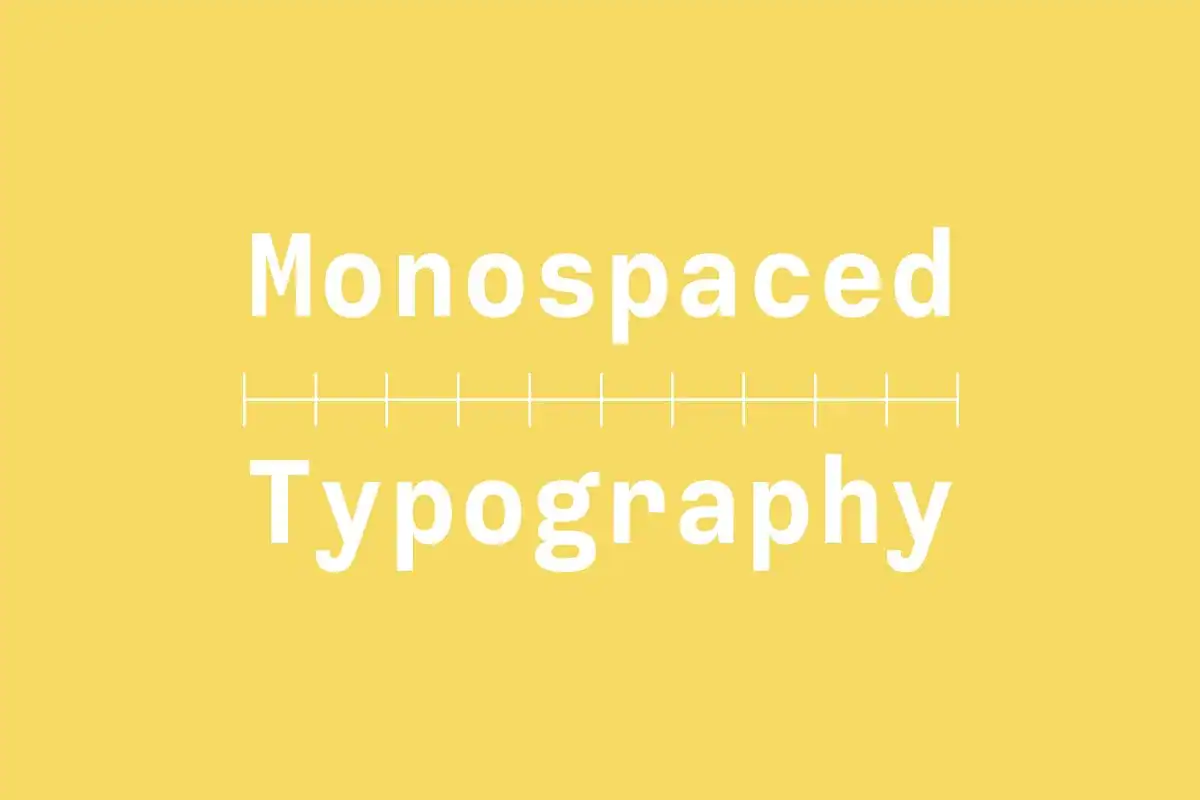
Visually speaking, monospaced fonts still feature varieties within the group; for example, there are still both serif and sans-serif versions of monospaced fonts. They can deviate in their individual flair and form, but they are easily identified as monospaced fonts due to their fixed, consistent character widths and spacing.
Even if you are not familiar with the term ´monospaced’ – you have almost certainly used or seen monospaced fonts regularly. One popular example that many people may know is the popular ´Courier’ typeface (?), which I’m sure many of you may recognize.
Why do Monospaced Fonts Exist?
Certainly, in modern times the reason for using or creating a monospaced font could be purely a visual one – but traditionally speaking, monospaced fonts existed because of more physical, mechanical limitations associated with typewriters. Characters on a typewriter needed to take up the same amount of width as each-other so that with each keypress, the ribbon would move the same amount each time. While monospaced fonts certainly popped up out of necessity, they still have their advantages in modern times.
Merchant Ledger – Typewriter Family by Twinbrush Image Forge
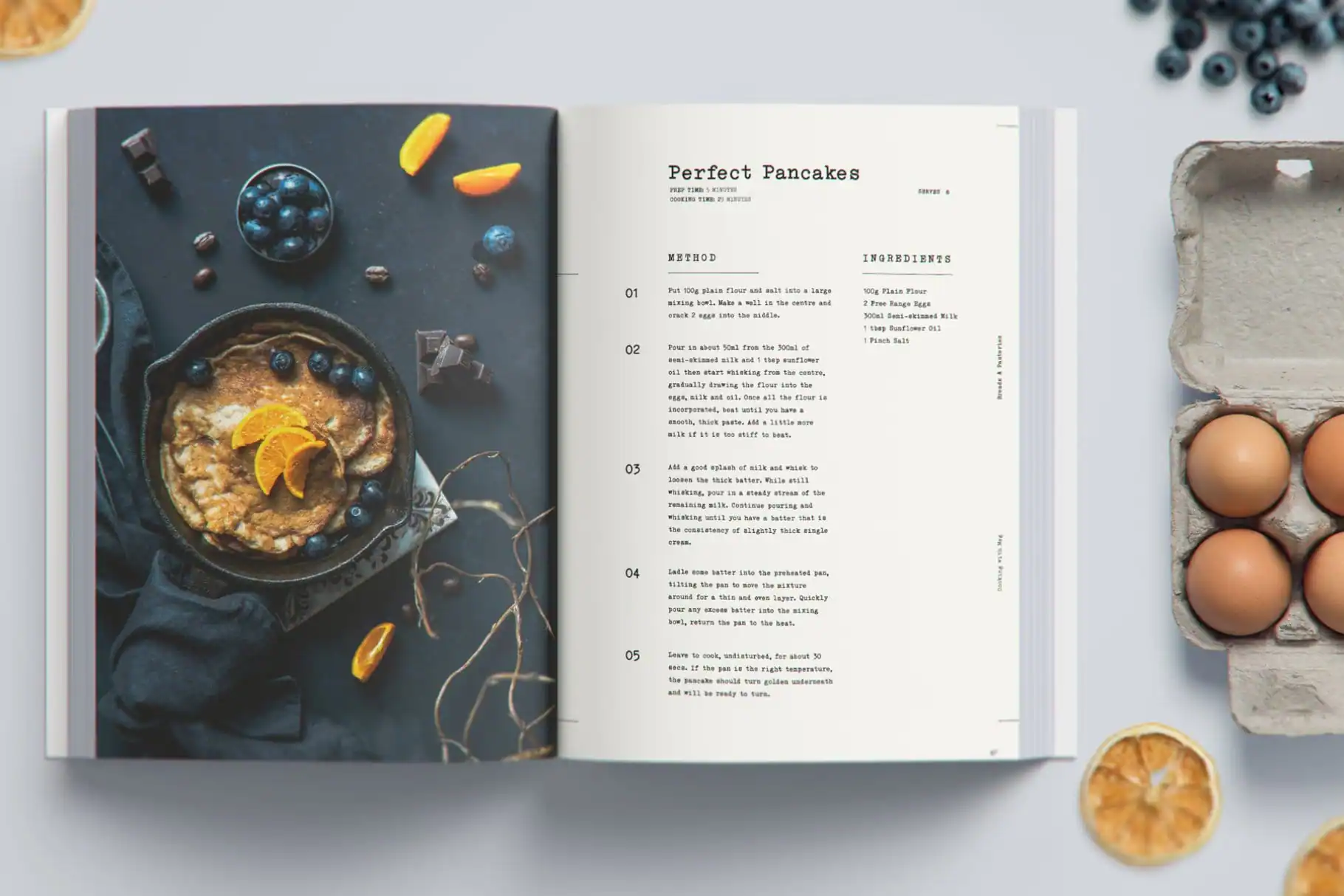
Advantages of Monospaced Fonts
Most fonts focus on using proportional spacing or kerning to ensure that the shape of entire words is more recognizable, making it easier to read and scan large portions of text. However, monospaced fonts aim to do something very different as they put the focus solely on the individual characters themselves.
Code & Terminals
Because of this focus on individual characters, monospaced fonts have become the default font choice in products aimed at developers working with code. Many code editors and terminals use monospaced fonts quite exclusively. This is often because scrolling through hundreds of code lines to look for a specific character or symbol becomes significantly easier when a monospaced font is used.
Code Saver by Dharma Type
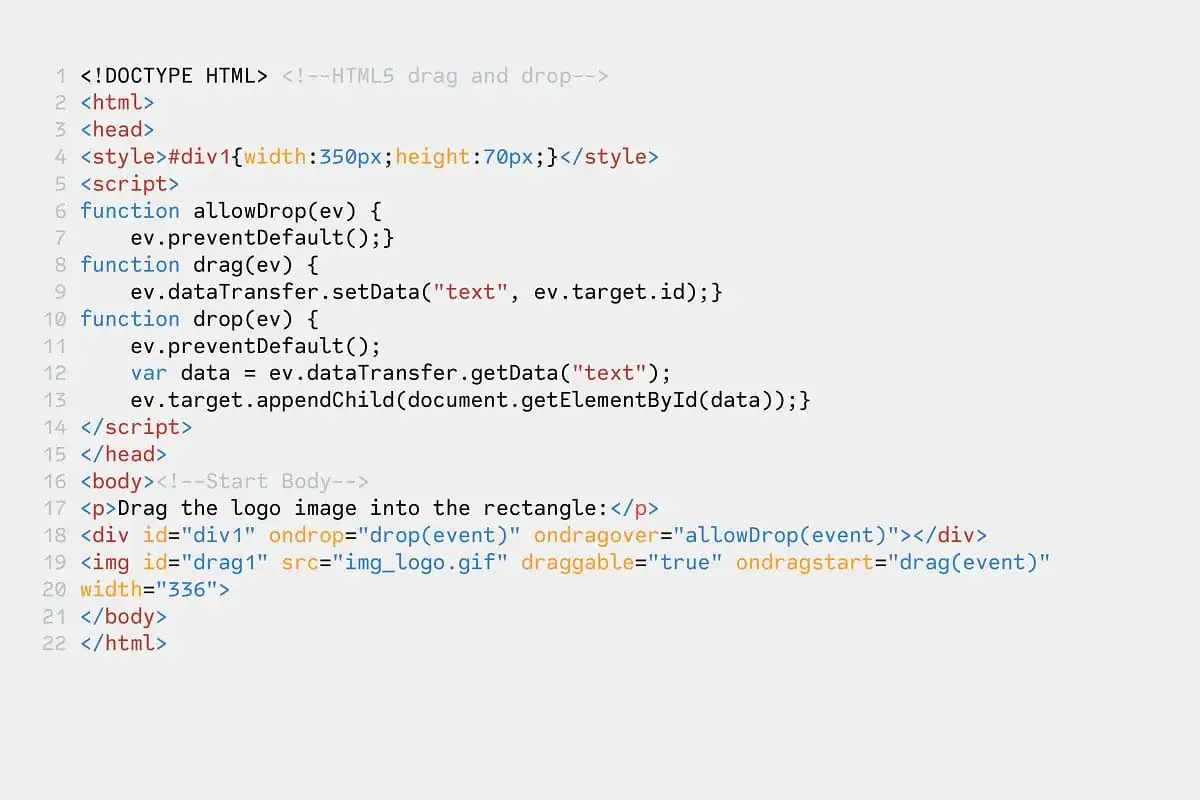
Numbers and finance
Another advantage of monospaced fonts can be seen when working with numbers. If you think about a spreadsheet or financial statement where there is a need for clear and easy to read numbers, you will often see monospaced fonts used – this is because it becomes easier to distinguish numbers at a glance, and fixed-width numbers tend to sit more neatly in a column-style layout.
TG Frekuent Mono by Tegamitype
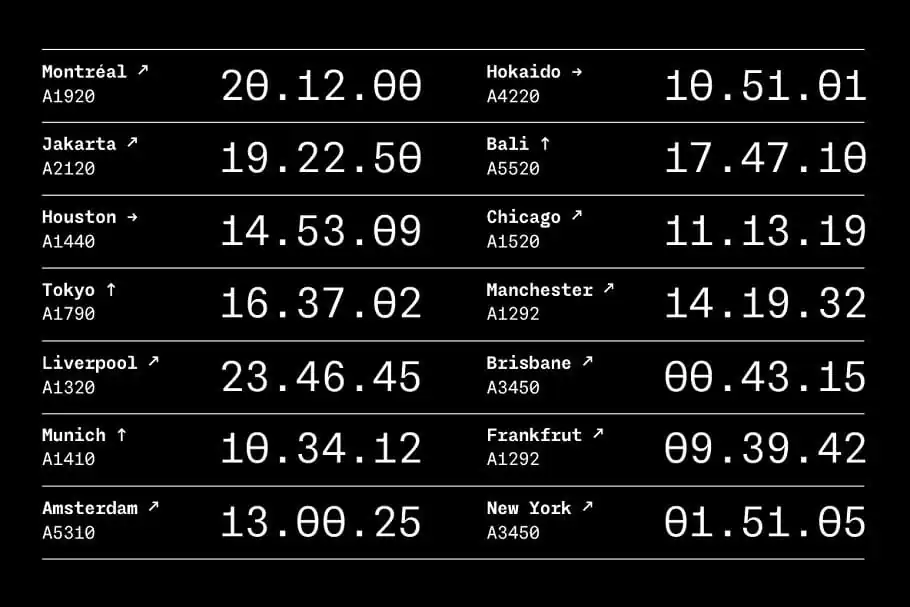
Code Saver by Dharma Type
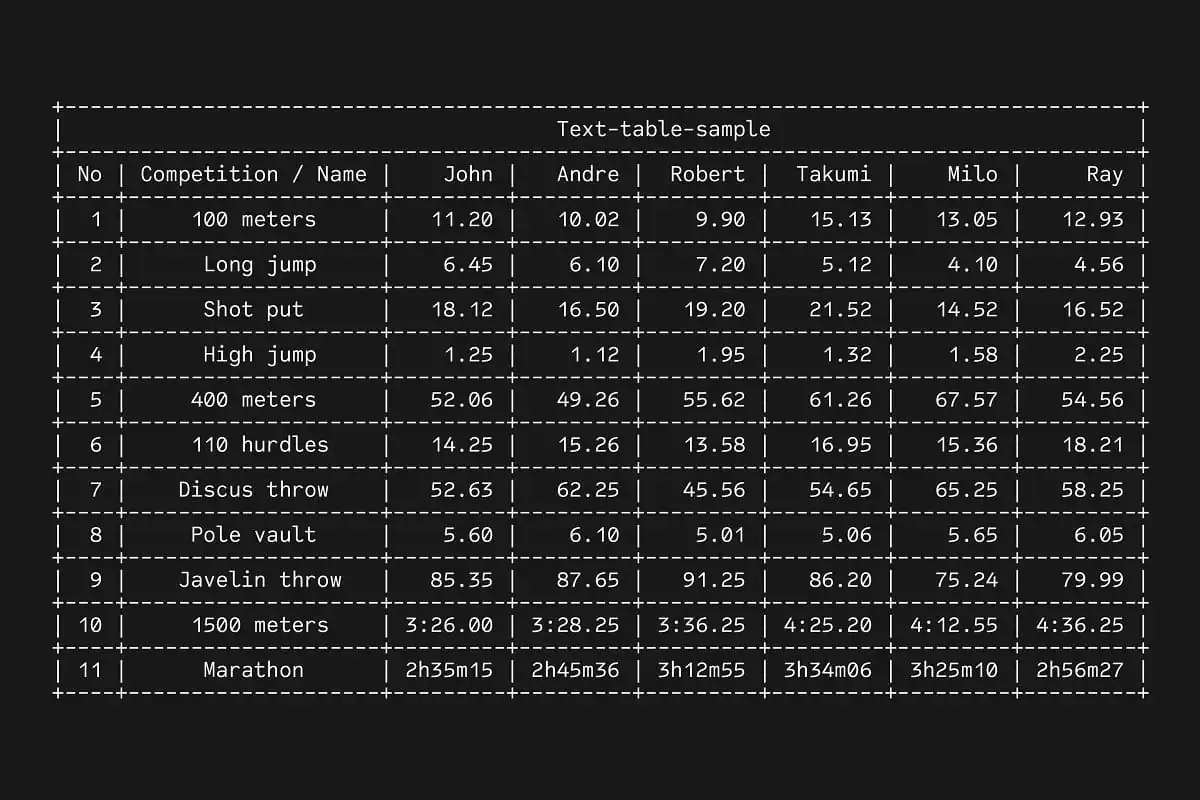
Explore Monospaced Fonts
All that said, monospaced fonts don’t always have to be used with a specific job in mind; sometimes, they might just fit a certain visual style you are trying to achieve. So while they may have been created for a specific purpose and still have useful applications today, they can certainly still be used purely as a stylistic choice. There are some great creative interpretations of monospaced fonts that can add their unique style to any project. Let’s quickly explore some handpicked monospaced fonts that I discovered on the marketplace.
Aux Mono by ATK® Studio
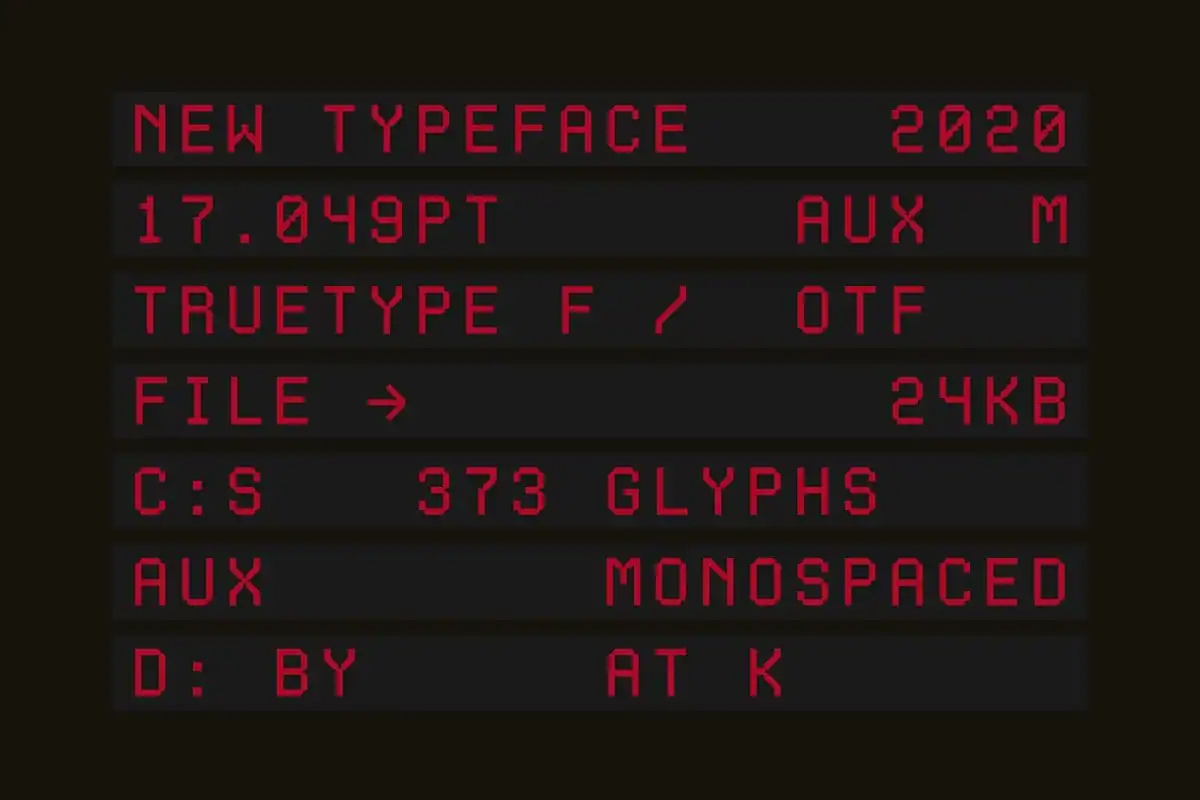
Gopher Mono Font Family by Adam Ladd
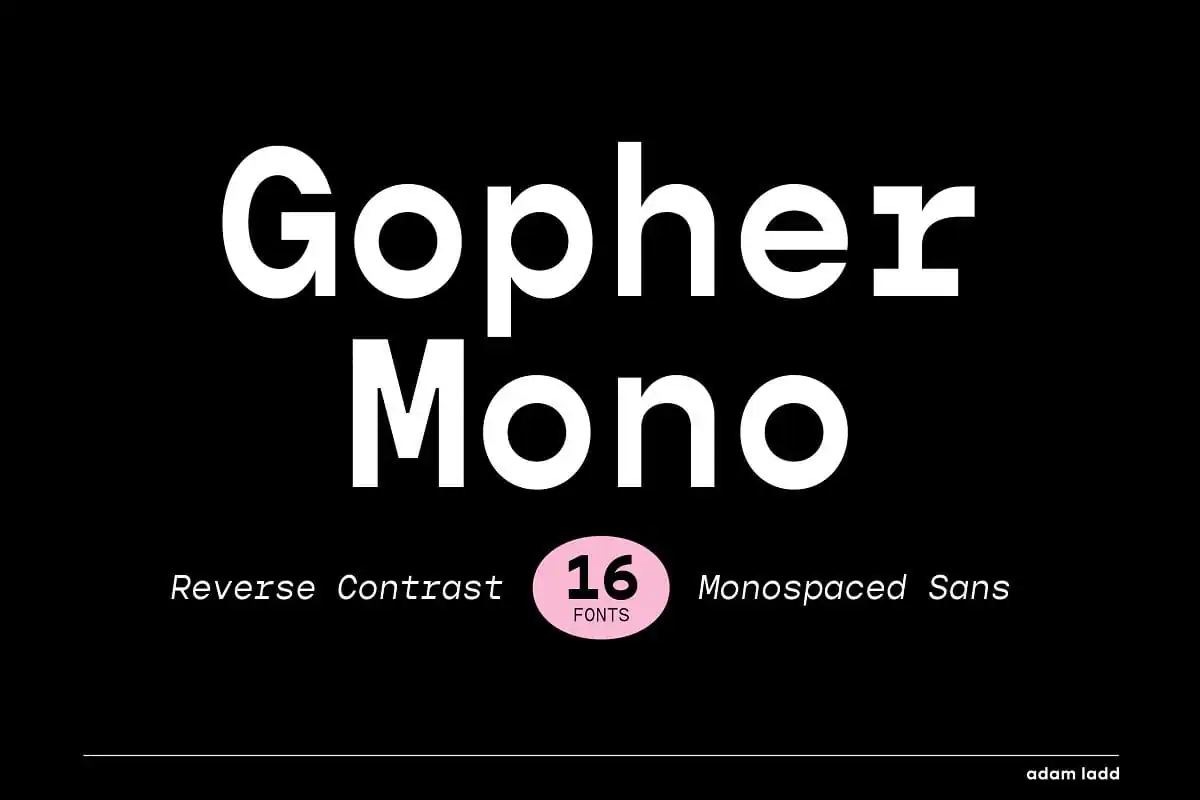
Cygnito Mono by ATK® Studio
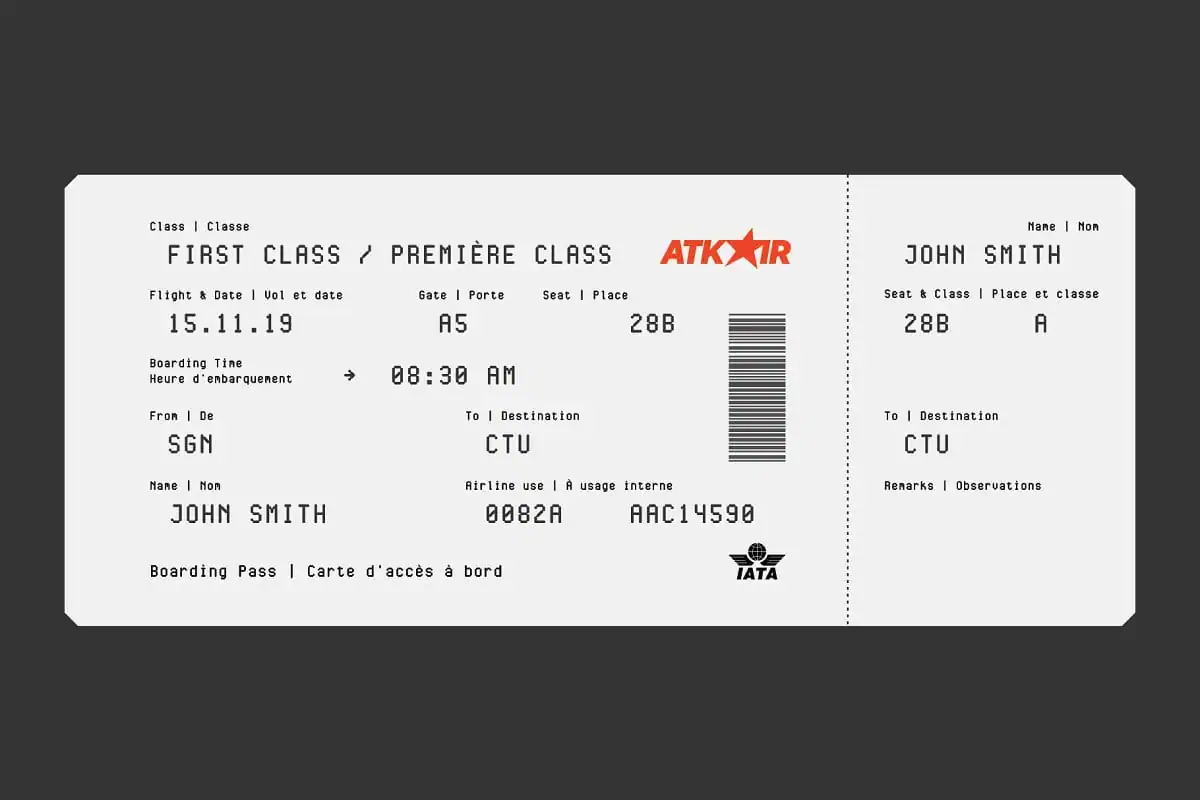
Qirate Mono | A Monospaced Font by Fateh.Lab
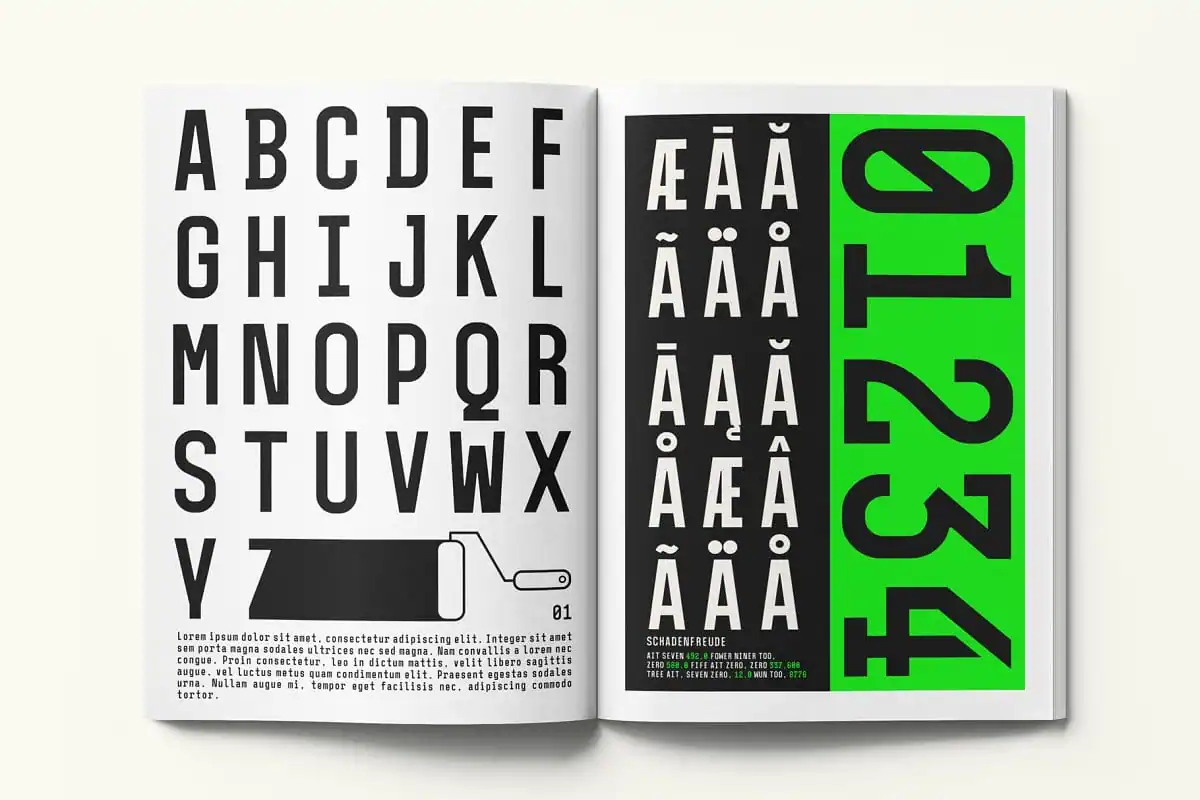
Loma – A Vintage-Style Stamp Font by Loren Klein
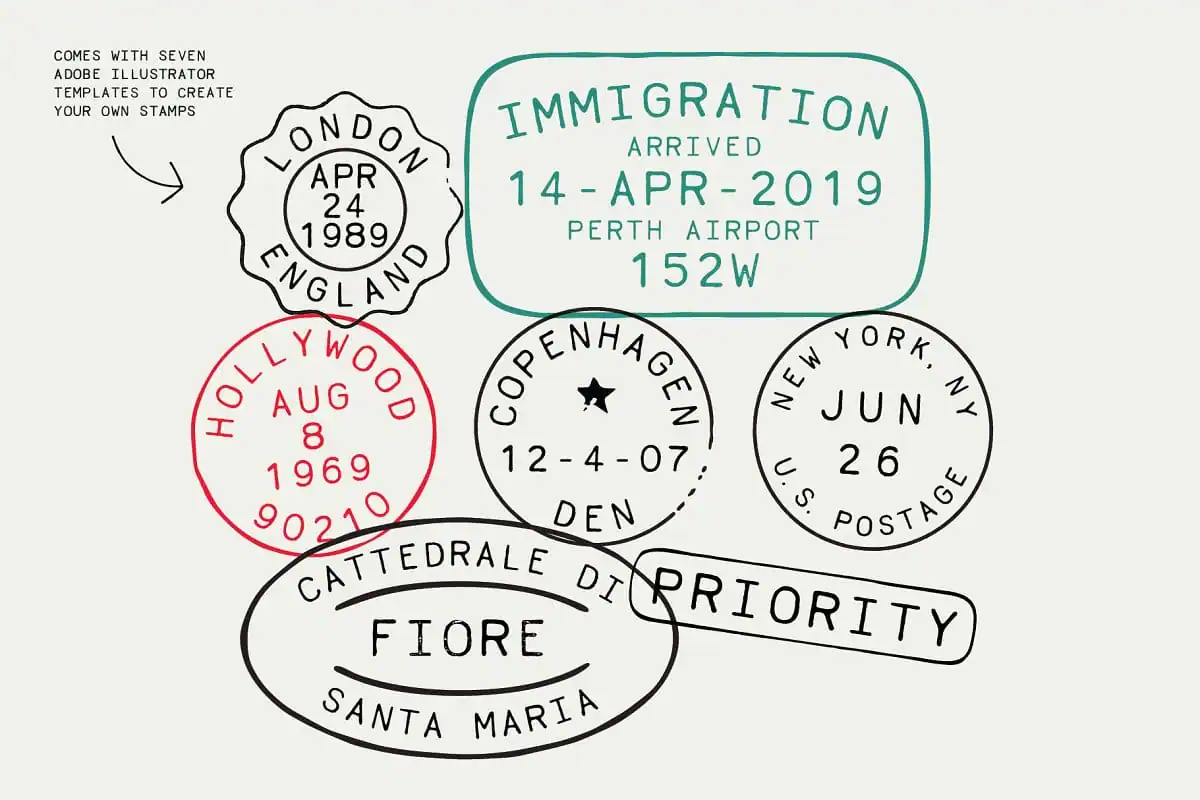
Ellograph CF by Connary Fagen
Cartograph CF by Connary Fagen
Digerati Mono Font Family by Haäfe & Haph
Antikor Font Family by Taner Ardali